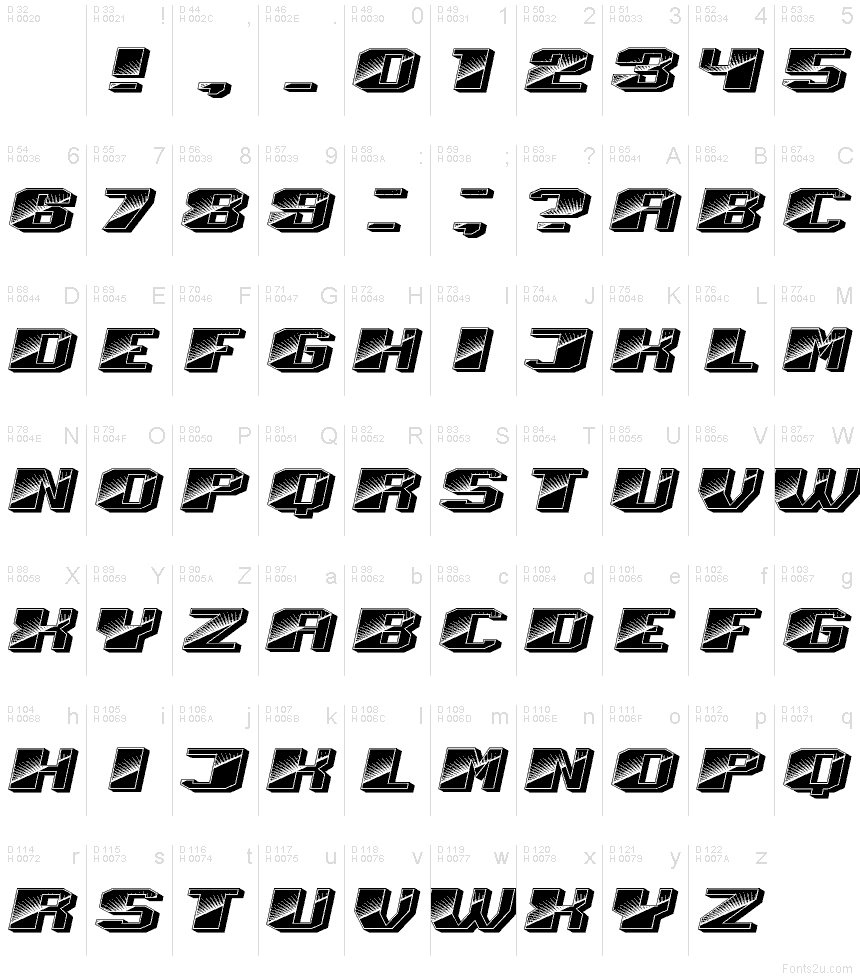
Unboxing Across Regular
Unboxing Across font by Vladimir Nikolic is a free industrial display typeface. Forward-leaning shapes, beveled edges, and dense diagonal hatch shading give each letter a metallic, in-motion feel—like speed lines wrapped around a bold block. Part of the Unboxing family, it hits hard at large sizes, the striped interiors catching light and texture while the outer strokes stay crisp and punchy.
Using Unboxing Across, you’ll get instant impact for gaming logos, sci‑fi titles, YouTube thumbnails, sports posters, tech packaging, and event flyers. The consistent slant creates momentum across words, while the hatch pattern adds tactile grit without sacrificing legibility. Pair this free font with a plain grotesk or geometric sans for body copy, and give it a touch of extra tracking when set in all caps.